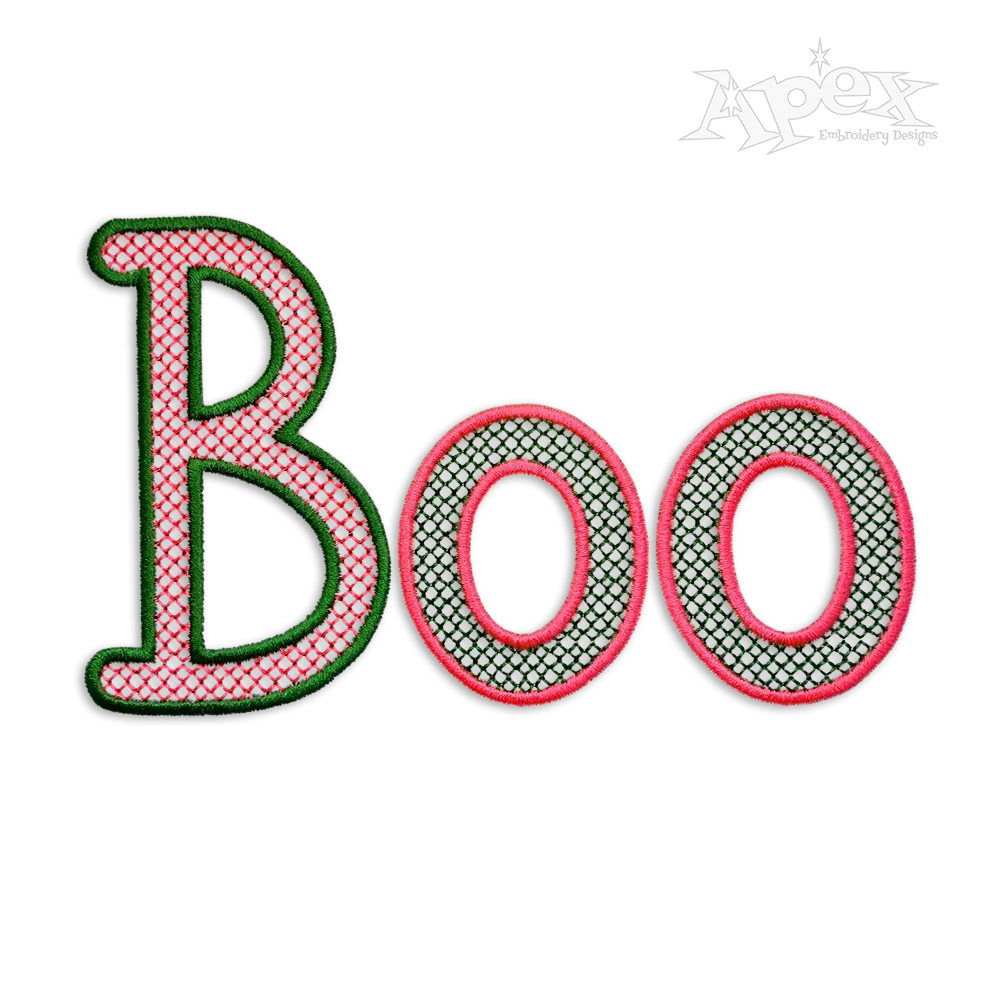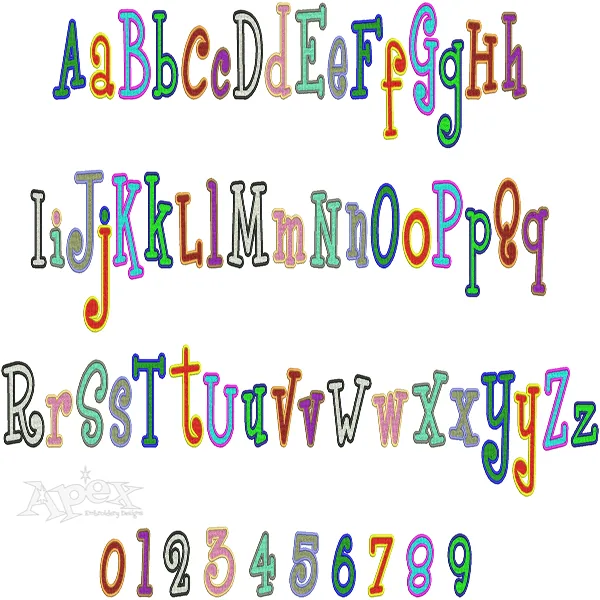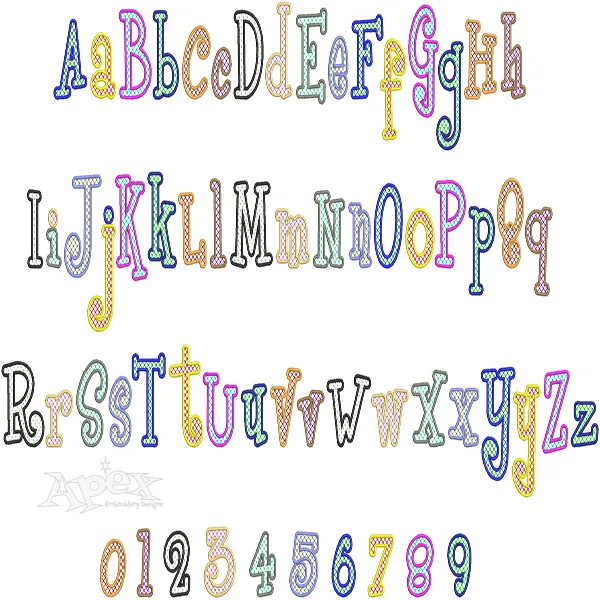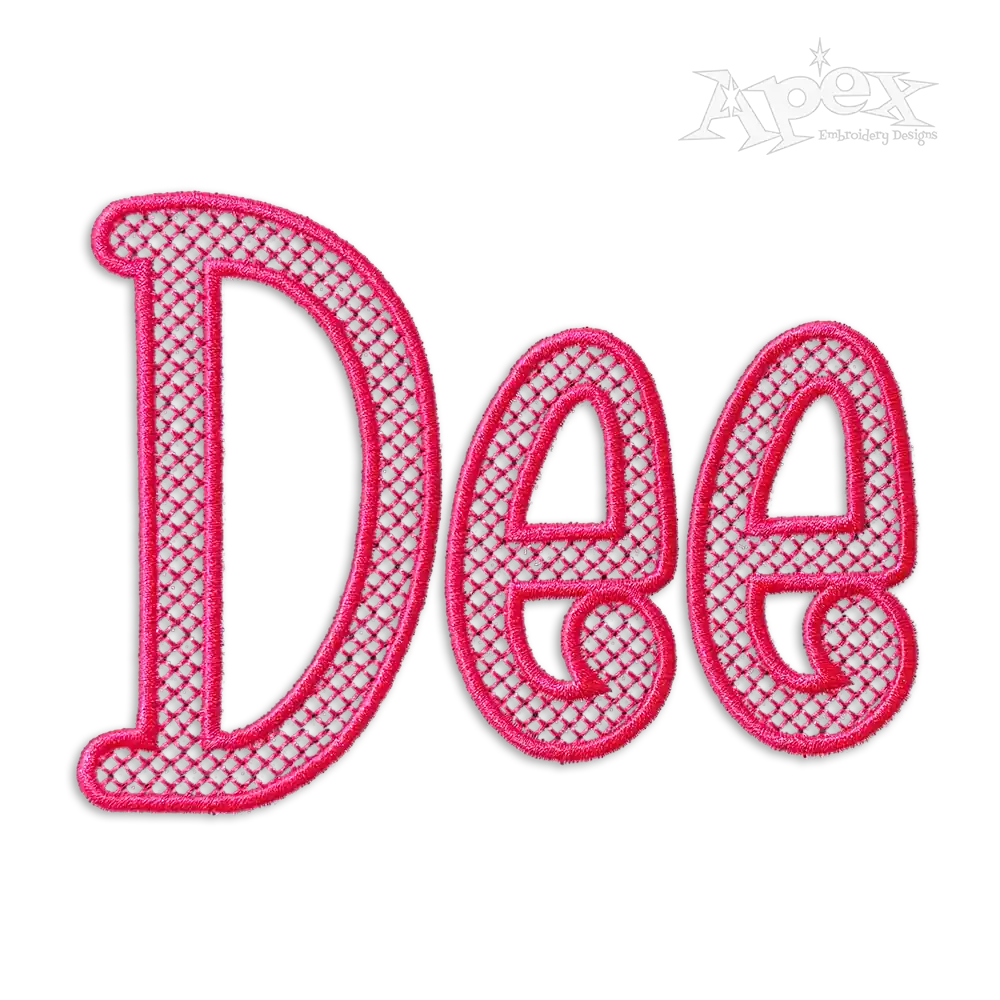
Boys R Gross Fill Embroidery Font
Born from the spunky irreverence and unfiltered nostalgia of youth, the Boys R Gross Fill Embroidery Font brings spirited character and playful defiance straight to the hoop. Digitized with an artisan appreciation for cheeky hand-lettering and childhood clubhouse banter, this energetic typeface pairs bold, animated letterforms with twin textural expressions: a rich, solid fill for vibrant stitch saturation and an intricate motif pattern that catches the light with subtle, rhythmic detail. Whether celebrating a spirited little rebel or adding an ironic, retro punch to modern streetwear, each character dances with tactile warmth and joyful movement.
Designed for flawless scalability across a wide spectrum of embroidery canvases, this collection includes two distinct styling variations—both a comprehensive Motif set and a dense, luxurious Fill set. Each alphabet variation is digitized in four versatile, proportional sizes:
- 2-inch letters (ideal for subtle accents, pocket crests, and coordinating monograms)
- 4-inch letters (perfect for children’s sweatshirts, tote bags, and nursery soft goods)
- 6-inch letters (commanding scale for toddler denim jackets and statement gifts)
- 8-inch letters (magnificent centerpiece scale for quilt squares, sports duffels, and oversized back patches)
Project Ideas for Boys R Gross Fill Embroidery Font
The lively geometry of this typeface makes it a delightful choice for dynamic personalizations that refuse to take themselves too seriously. Infuse everyday textiles with humor and handcrafted charm across these curated projects:
- Custom Denim & Jean Jackets: Anchor the full 8-inch font across the back yoke of a distressed trucker jacket for an unforgettable, boutique statement piece.
- Bespoke Camp & Gear Bags: Personalize heavy canvas duffels, swim bags, and adventure packs using the 4-inch or 6-inch Motif stitch, giving gear an unmistakable, cheerful identity.
- Cheeky Lounge & Sibling Sets: Create playful matching sweatshirts, birthday tees, and relaxed French terry sets customized with quirky nicknames and club mottos.
- Playroom Pennants & Canvas Banners: Stitch whimsical room signs, canvas wall tapestries, and customized toy hampers for a spirited nursery or children's lounge.
- Youth Bedding & Keepsake Quilts: Alternate between the Motif and Fill treatments across patchwork blocks to introduce dynamic textural depth into heirloom blankets.
Because of its energetic silhouette and balanced weight, deliberate placement allows the Boys R Gross font to truly shine across diverse garment profiles:
- Full Back Yoke: Utilize the 6-inch or 8-inch sizes centered between the shoulder blades on fleece pullovers, chore coats, or denim jackets for bold visibility.
- Off-Center Chest & Pocket Framing: Position the 2-inch or 4-inch motif lettering slightly above an existing patch pocket or aligned high on the left chest for a relaxed, modern aesthetic.
- Diagonal Canvas Alignment: Angle names or cheeky words across the lower corner of canvas market bags or play mats to complement the font's spontaneous, hand-sketched energy.
- Vertical Sleeve Runs: Stack smaller characters down the outer forearm of a heavyweight hoodie for an athletic, streetwear-inspired treatment.
Boys R Gross Fill Embroidery Font Craft & Letterform Details
Digitizing a font with this much lively personality demands meticulous technical engineering beneath the whimsical surface. Every stroke has been plotted with custom pathing to balance thread direction, ensuring the light reflects uniformly without creating harsh pull-lines against high-tension fabric. The solid Fill variation employs a multi-directional underlay matrix that anchors the fibers completely, preventing shifting and puckering while supporting a smooth, velveteen top layer of pure color. Meanwhile, the companion Motif variation utilizes specialized open-work structural stitches, forming an airy, geometric lace that showcases garment fabrics beneath while maintaining crisp edge definition. Clean, rounded terminals and organic curves give this alphabet its distinct hand-drawn charm, offering machine embroiderers a flawless balance of artisan character and industrial-grade stitching precision.